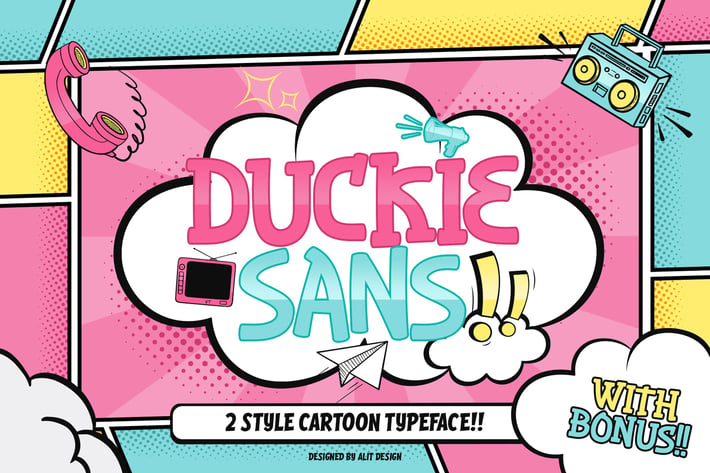
Duckie Sans Cartoon Comic Typeface
Presenting the 🗯️💬Duckie Sans Cartoon Comic Typeface💬🗯️ by alitdesign.
The Duckie Sans Cartoon Comic Typeface is inspired by the style of letters in comics that have less serious and fun characters. The lettering of the Duckie Sans Cartoon Comic Typeface is a sans serif with display font characters which gives a fun and design impression for children. The Duckie Sans Cartoon Comic Typeface has 2 family font slab serif and sans serif style. The Duckie Sans Cartoon Comic Typeface is perfect for creating designs with non-serious concepts, designs for children, book headers, and of course for text on comics.
The Duckie Sans Cartoon Comic Typeface also gets a bonus character of 230 Comic-themed illustrations that make creating designs even easier. Simply by downloading The Duckie Sans Cartoon Comic Typeface creating a Comic and non formal themed design is very quick and easy.
The Duckie Sans Cartoon Comic Typeface is perfect for magazine cover designs, brochures, flyers. Instagram ads, Canva Design and so on with comic, non-serious, pop art, game mobile and fun design. Besides that this font is very easy to use both in design and non-design programs because everything changes and glyphs are supported by Unicode (PUA).
The Duckie Sans Cartoon Comic Typeface contains 576 + 230 bonus glyphs with many unique and interesting alternative options.